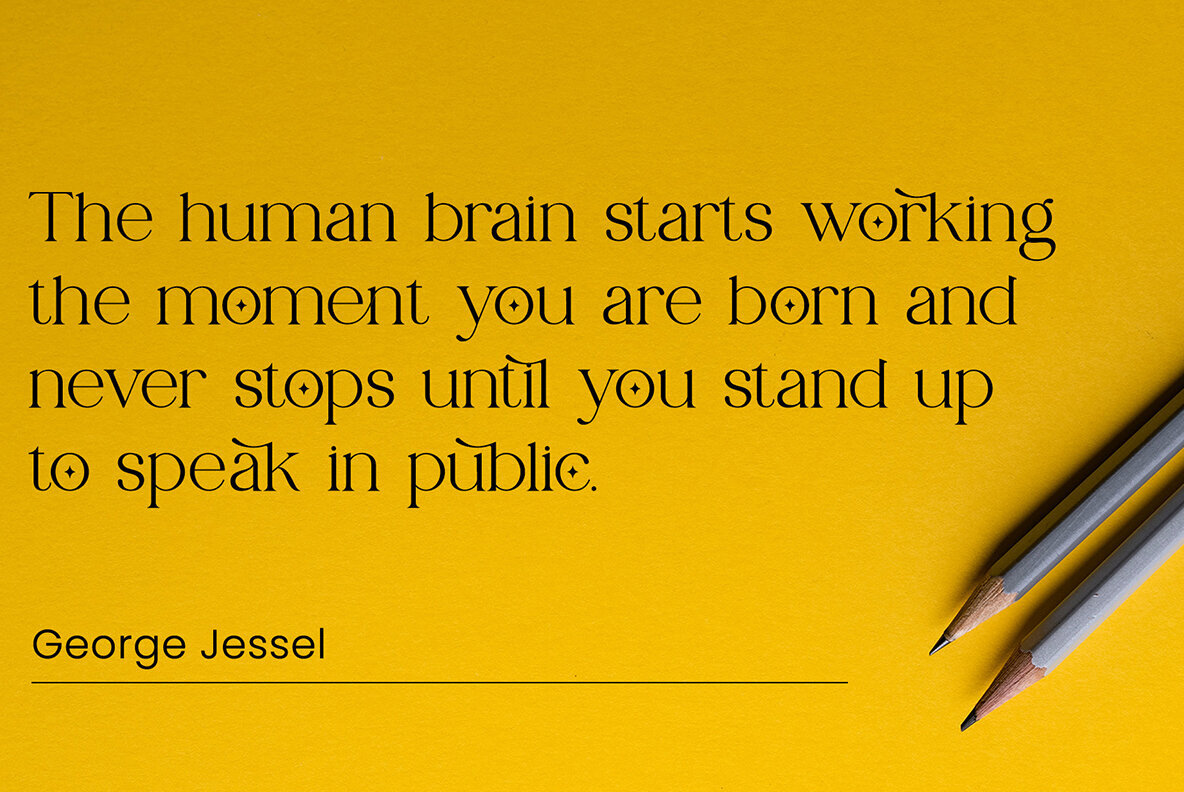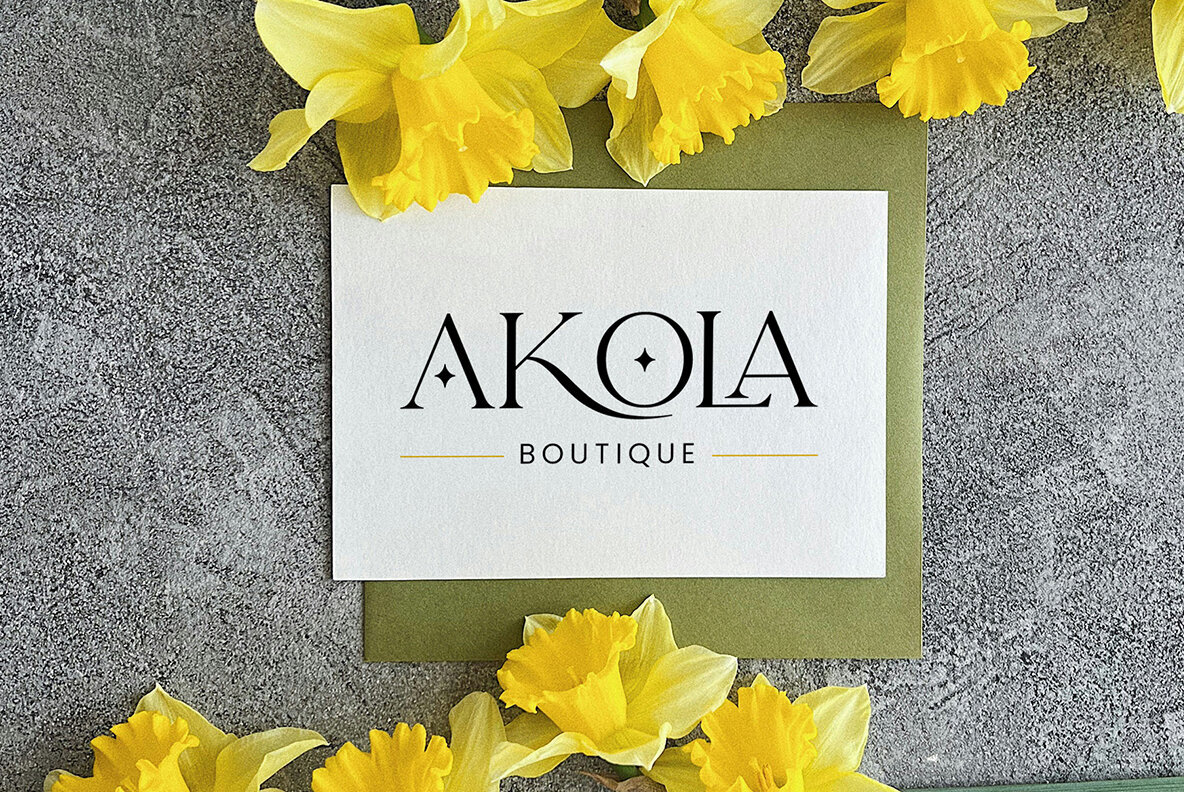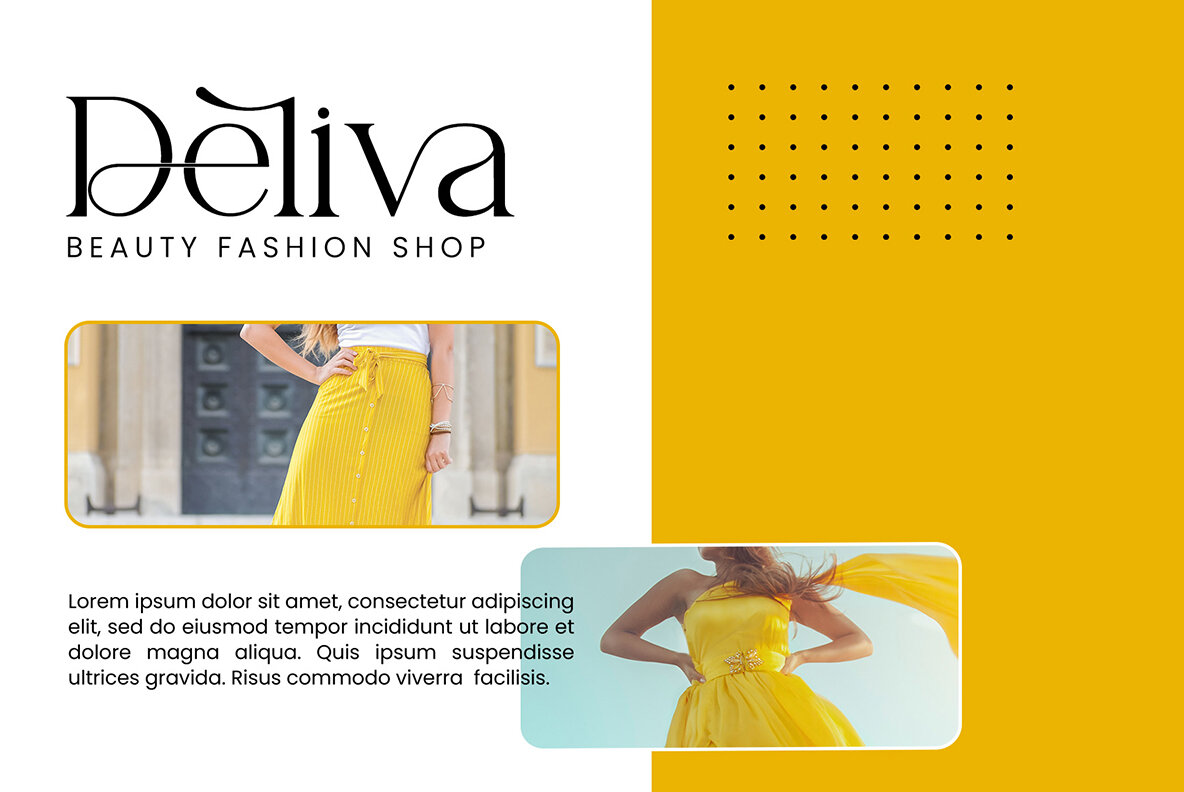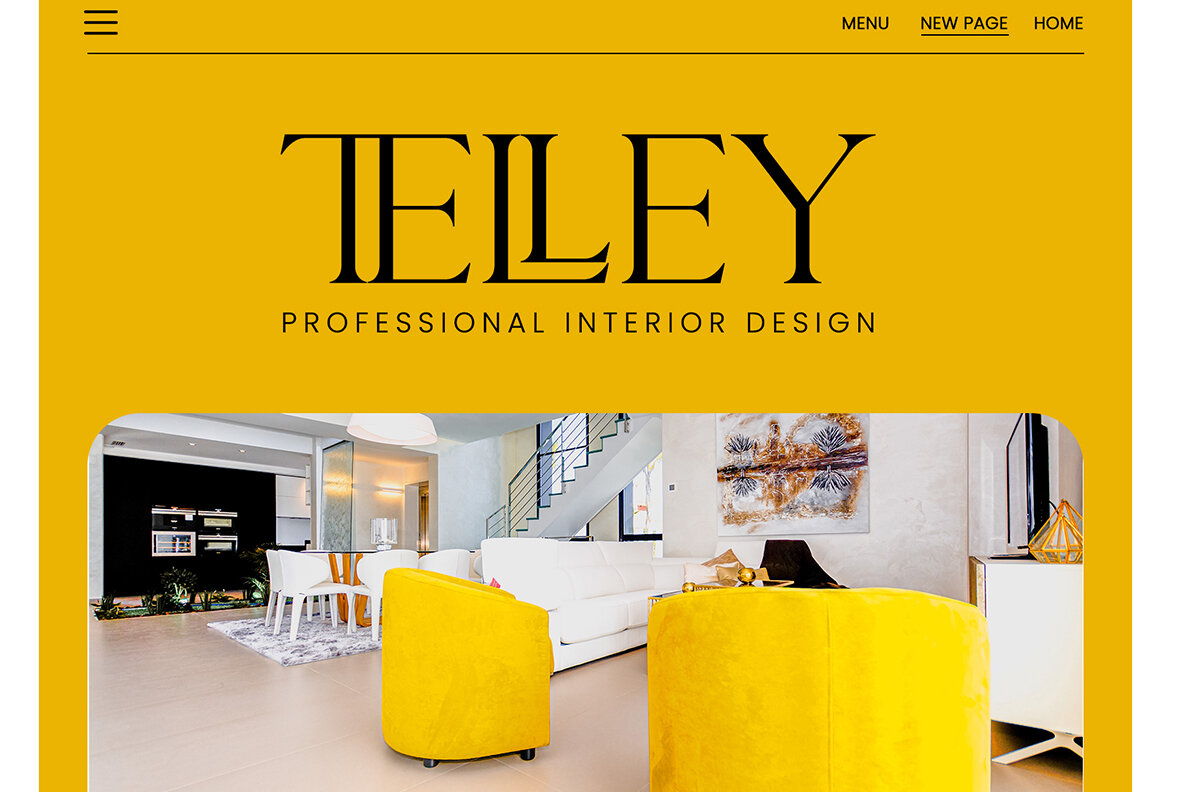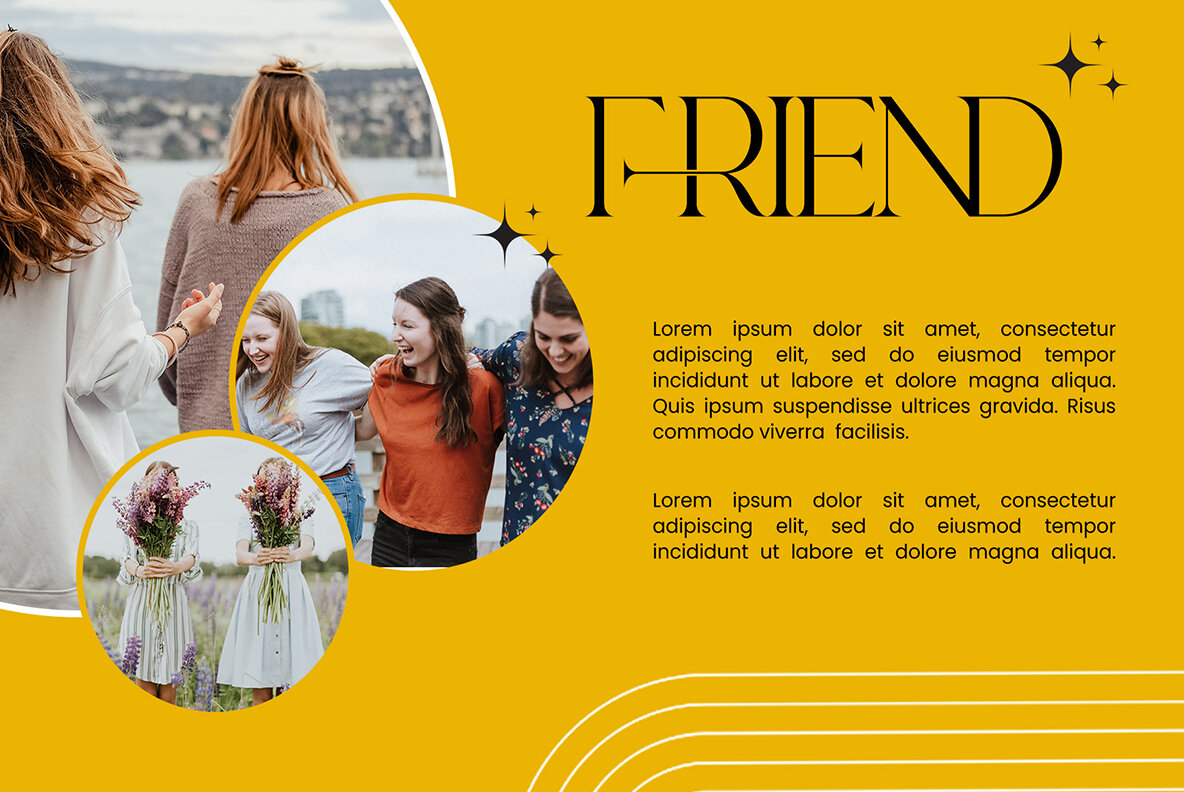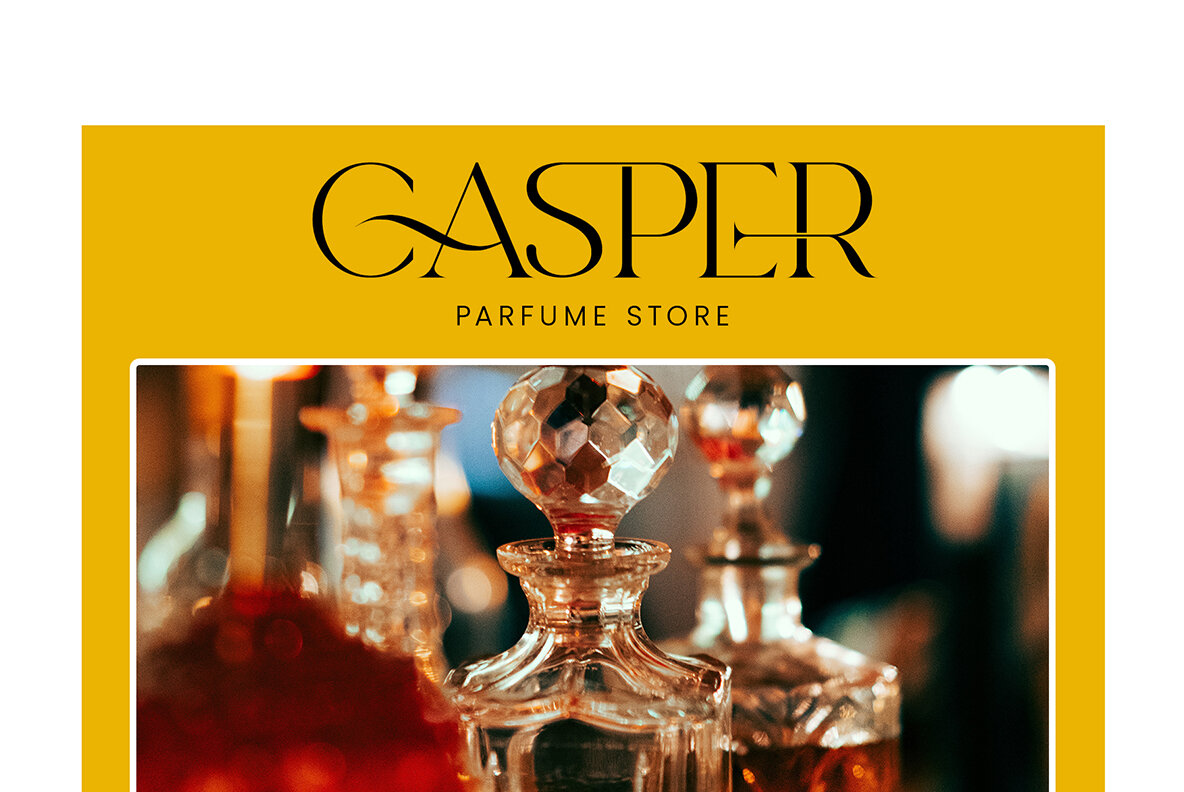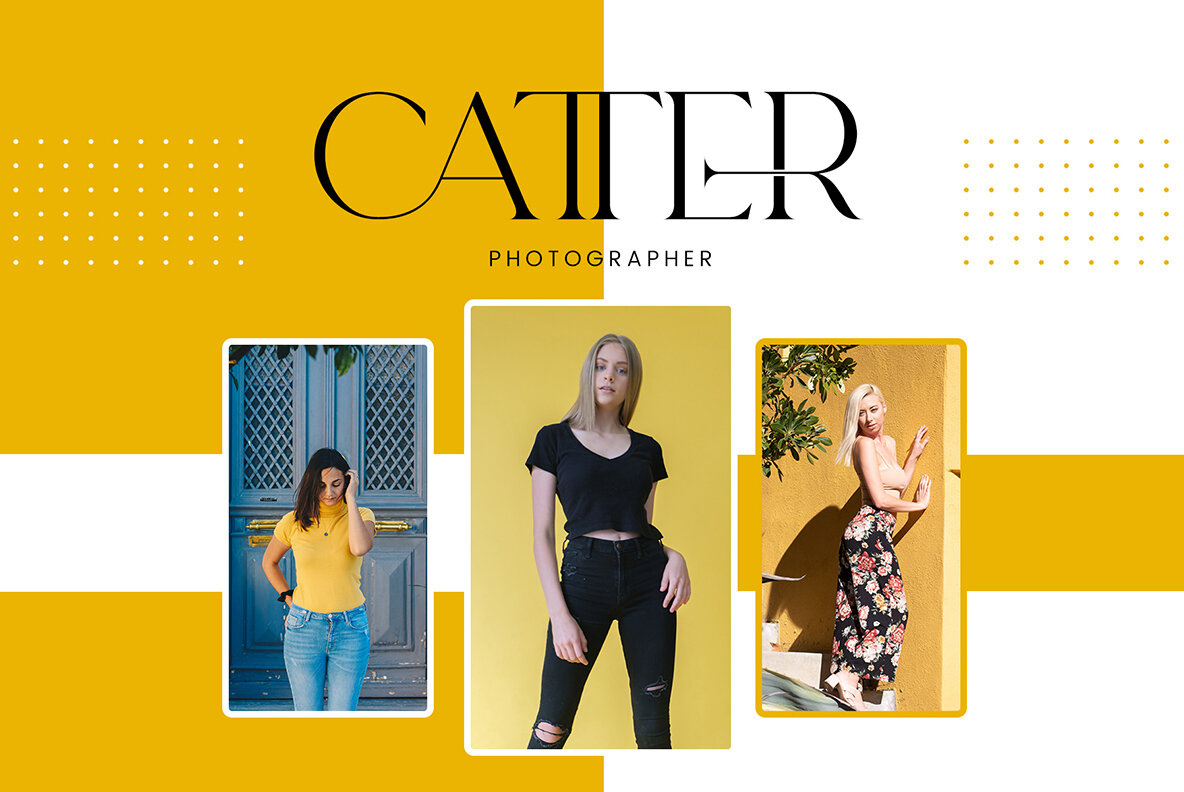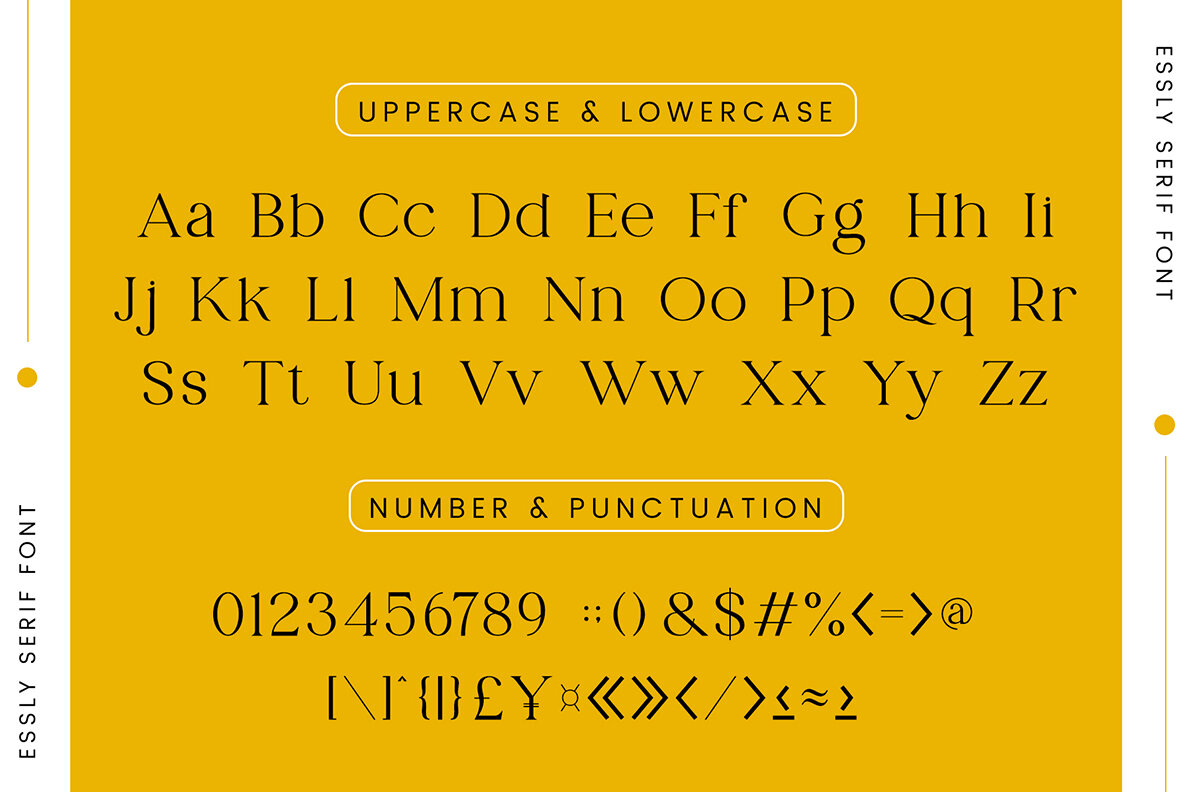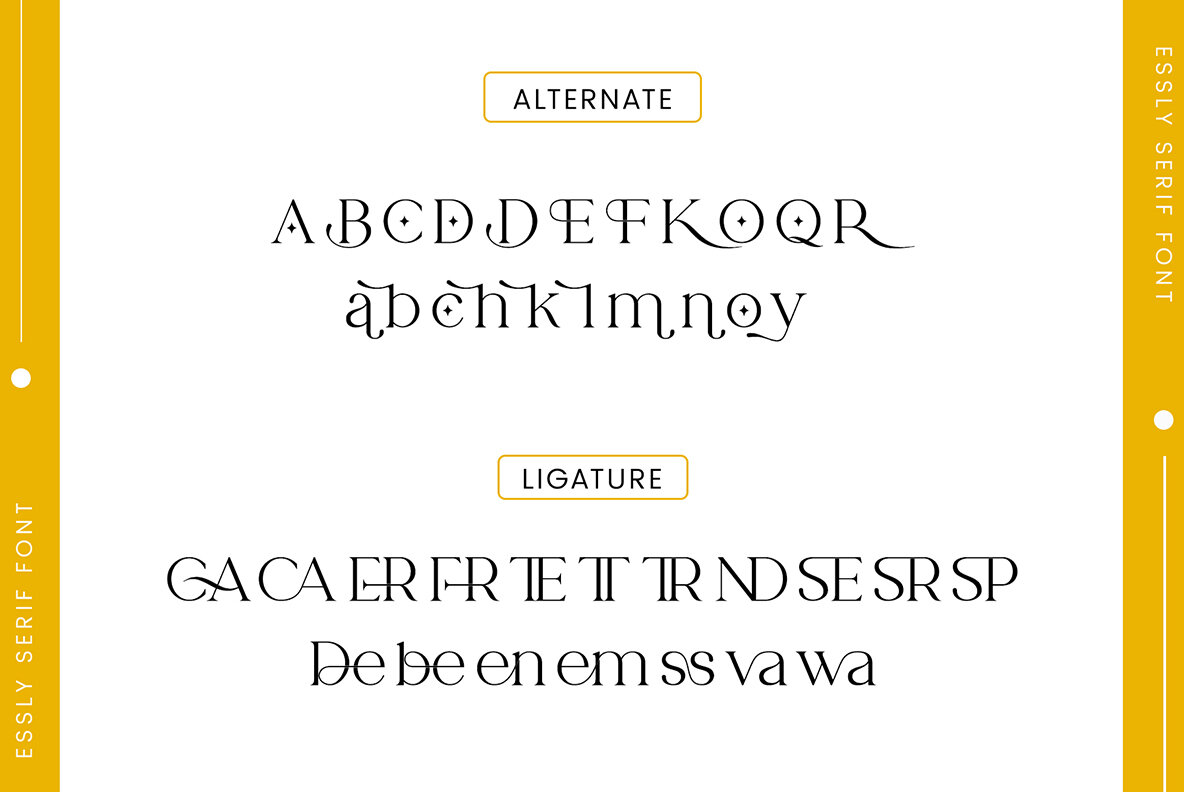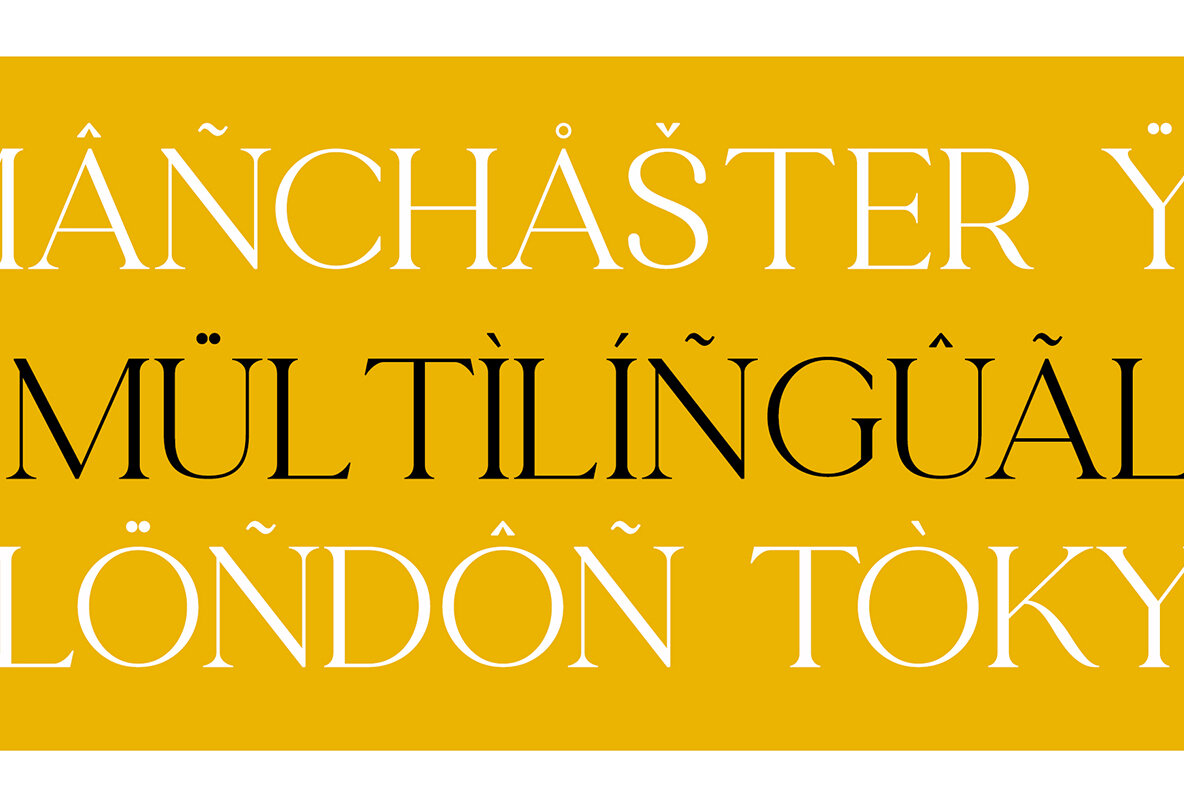
Essly Font
Essly Regular
Essly Serif is a balanced, smooth, and stylish serif font that exudes sophistication. Its elegant character is perfect for a variety of design projects, including invitation cards, company logos, movie titles, business cards, book titles, and brand names. With its subtle yet striking presence, Essly Serif is an ideal choice for adding a touch of elegance to any project.Essly Serif: Elegant and Versatile Serif Font